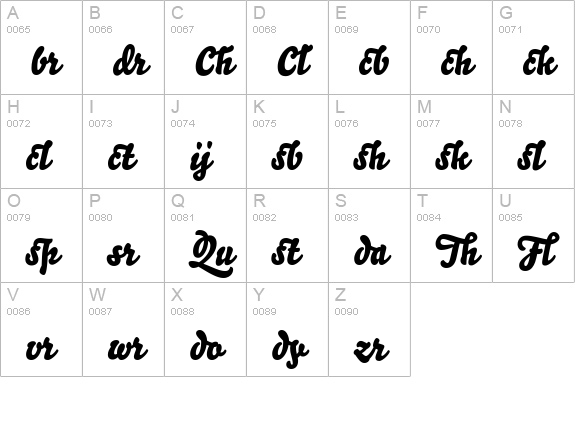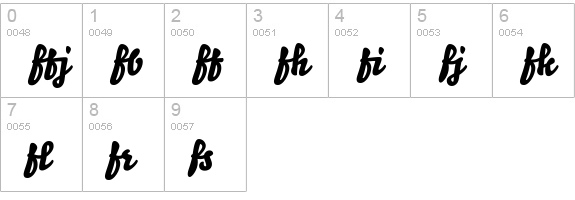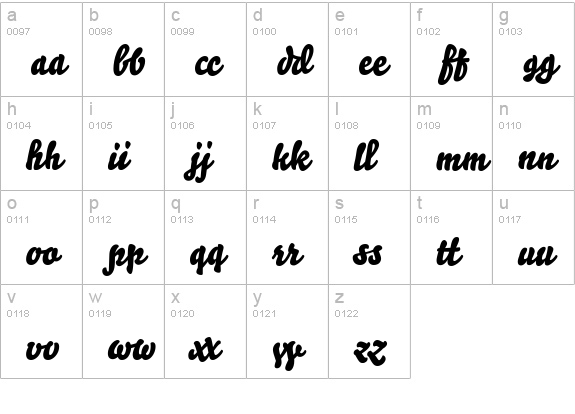
Bello Script Ligatures Font Details
Bello Script Ligatures font is a stunning and elegant typeface that brings a touch of sophistication to your designs. With its exquisite ligatures and flowing curves, this font is perfect for adding a luxurious and stylish look to any project. Whether you're creating wedding invitations, branding materials, or elegant signage, Bello Script Ligatures font will elevate your designs to the next level. Best of all, Bello Script Ligatures font is completely free to download at FontsMarket.com. Simply visit the website and start using this beautiful font in your projects today. Don't miss out on the opportunity to enhance your designs with this exquisite typeface.